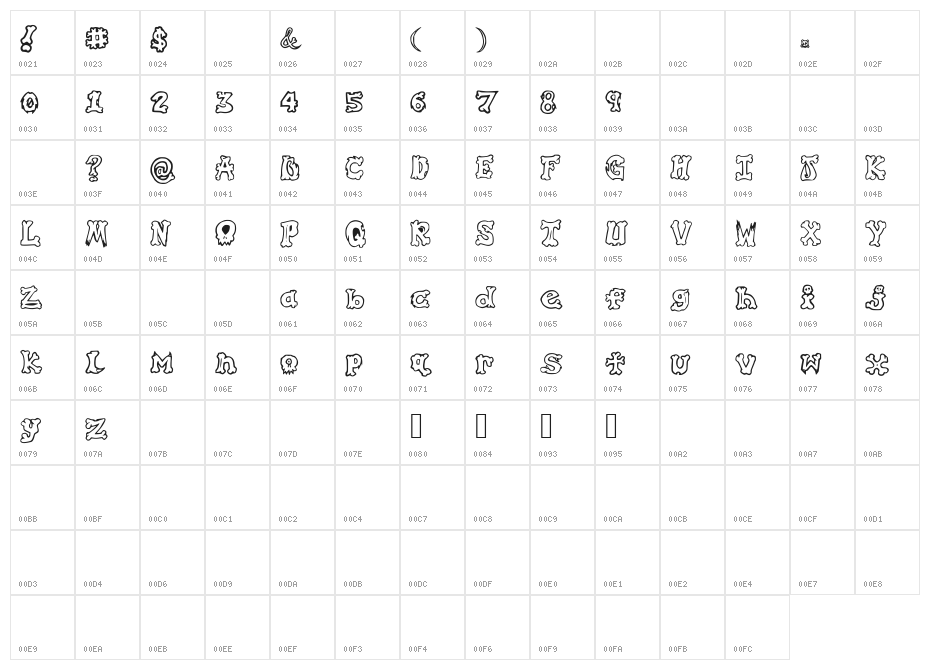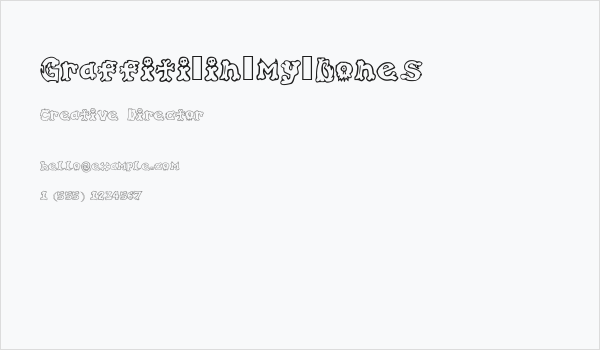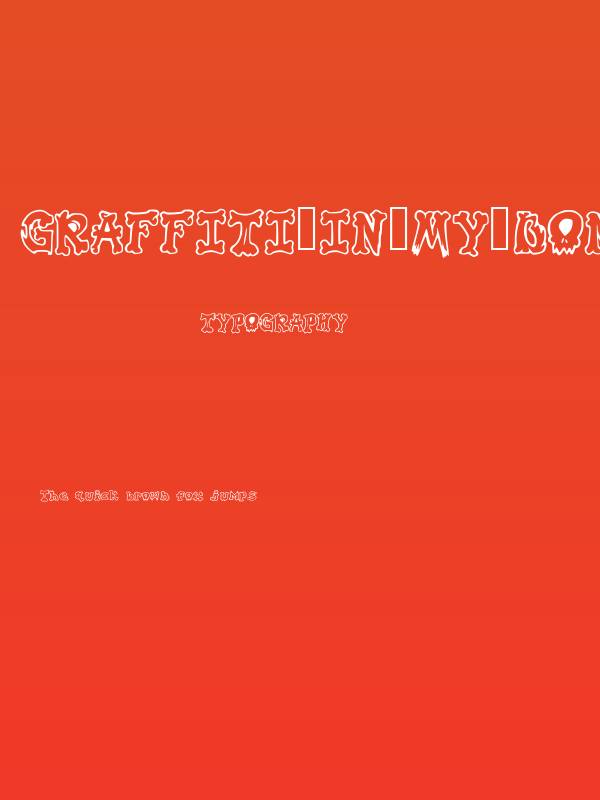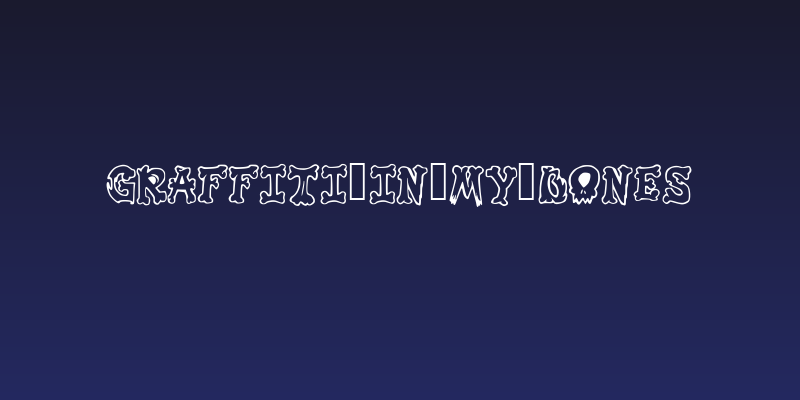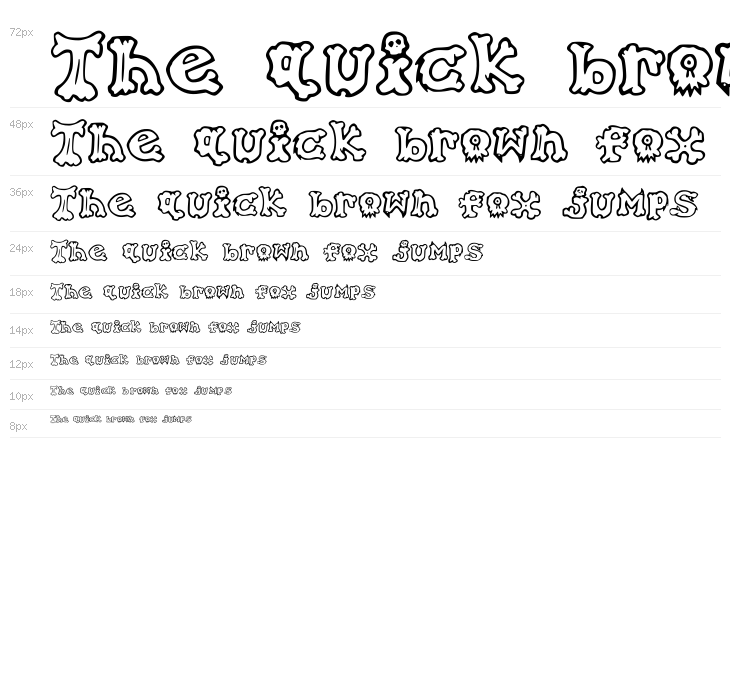
Graffiti_in_my_Bones Font
Graffiti_in_my_Bones Description
This font features a bold and playful design with a graffiti-inspired aesthetic. The letters are characterized by their irregular, jagged edges and dynamic shapes, reminiscent of street art. Each character has a unique, hand-drawn appearance, adding to the font's energetic and rebellious vibe. The uppercase and lowercase letters maintain a consistent style, with exaggerated curves and sharp angles. Numbers and special characters follow the same artistic theme, making the font versatile for creative projects. The overall look is eye-catching and unconventional, perfect for making a statement.
Overall StyleModern, Decorative
Proposed ProjectsIdeal for street art designs, urban-themed posters, album covers, and edgy branding projects.